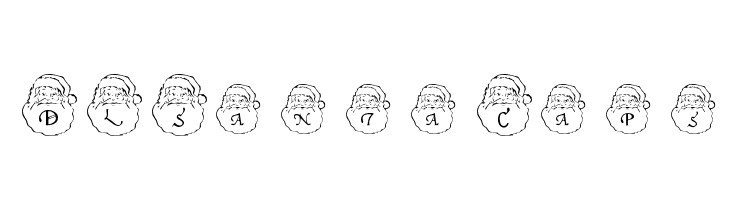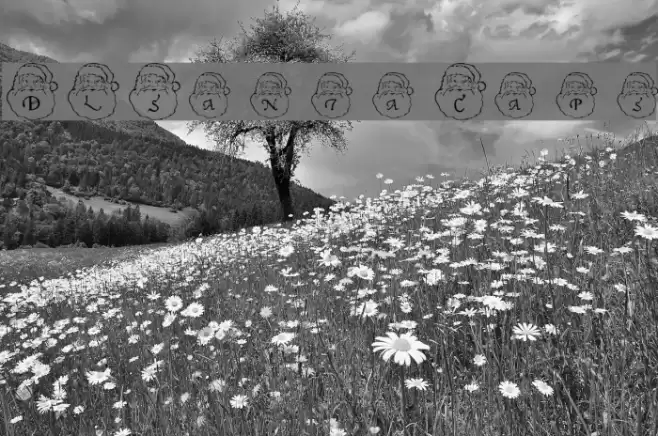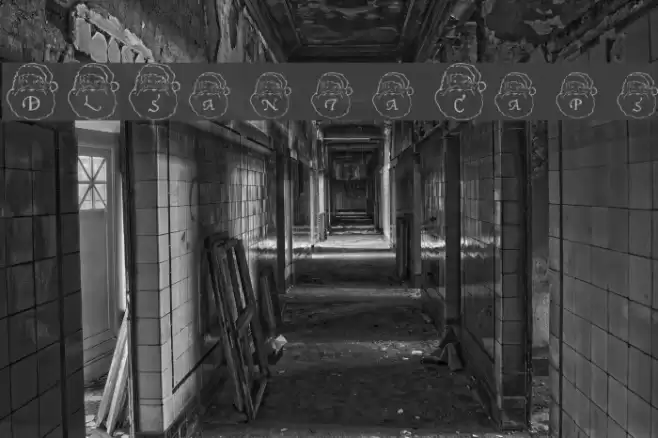
DLSantaCaps Font
This whimsical and festive font features each letter encased within a detailed illustration of Santa Claus's face, complete with his iconic hat and beard. The letters themselves are stylized with a playful, slightly curved design that complements the jovial theme. The font is ideal for holiday-themed projects, offering a unique blend of decorative and illustrative elements. Its intricate design makes it more suitable for larger displays where the details can be appreciated, rather than small text. The font does not include lowercase letters or numbers, focusing instead on a complete set of uppercase characters and a selection of special symbols.
| Proposed Projects | Ideal for Christmas cards, holiday banners, festive invitations, and seasonal marketing materials. |